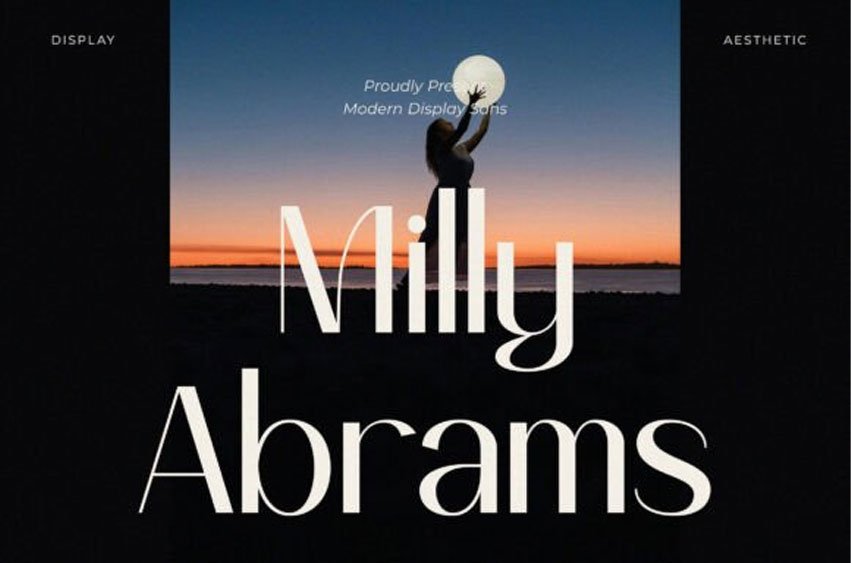
Milly Abrams Font is a modern display serif font that exudes elegance and sophistication. Its clean lines and delicate curves create a timeless aesthetic that’s perfect for adding a touch of luxury to your designs.
Whether you’re designing wedding invitations, branding materials, or editorial layouts, Milly Abrams will elevate your projects.